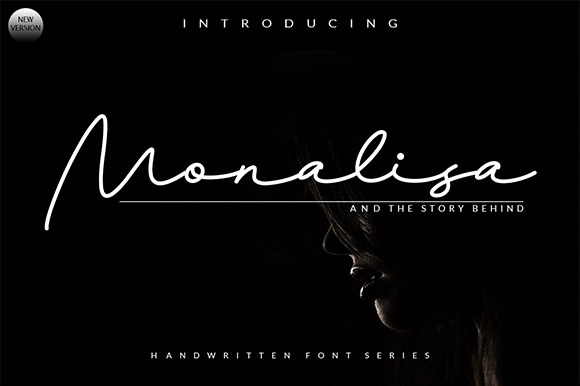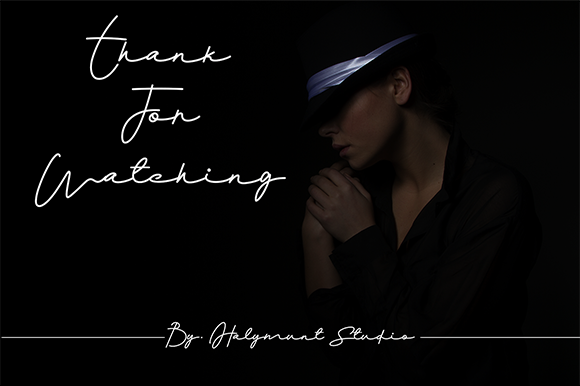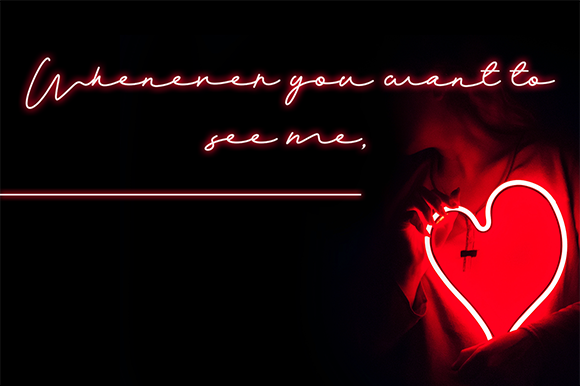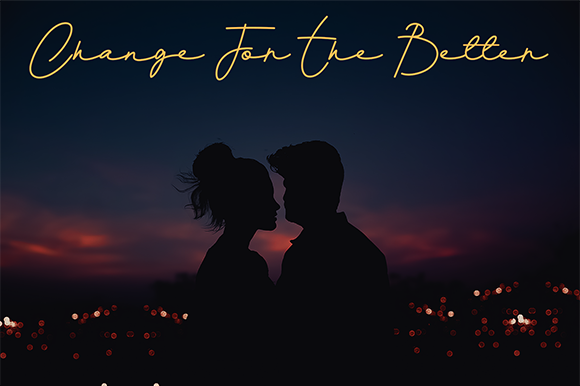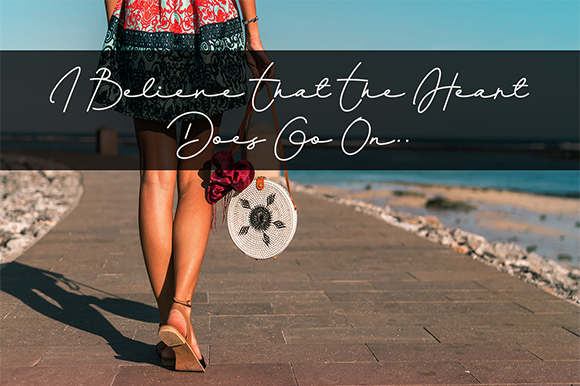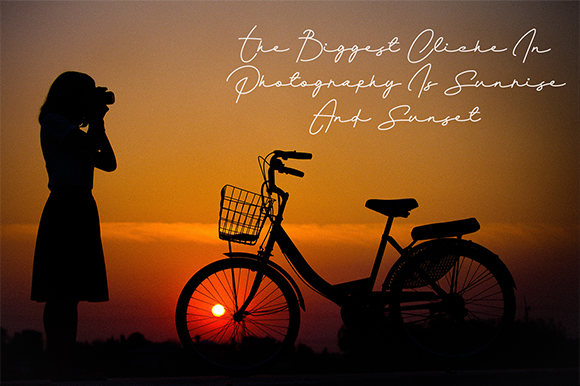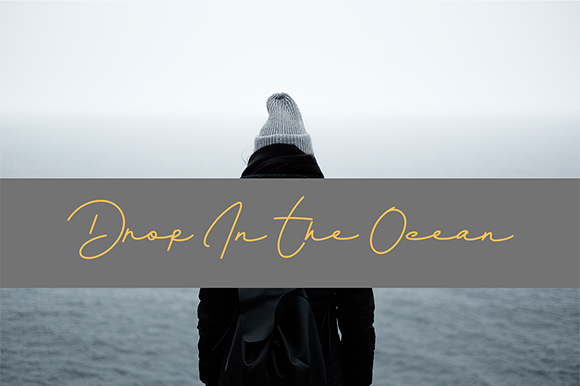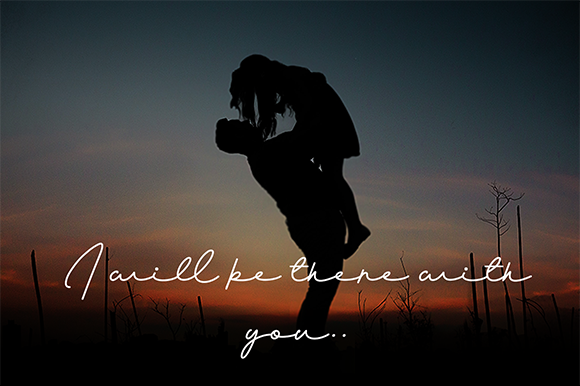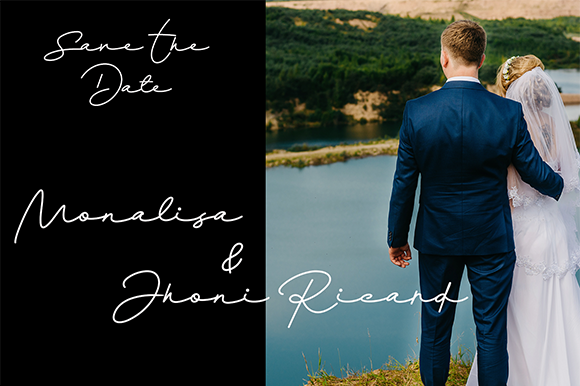
Monalisa Script Font
About Monalisa Script Font
Monalisa Script is light and casual handwritten font with a smooth baseline. It will add a charming touch to any design idea!